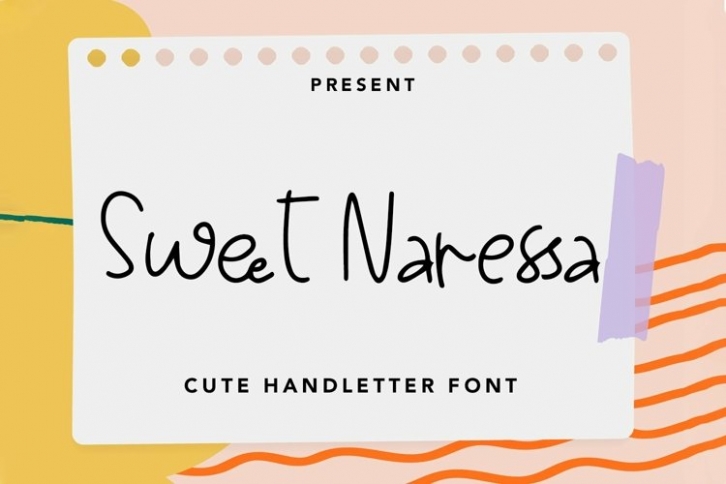
Web Sweet Naressa is a beautiful font that was designed by plusstore. It's a great choice for designers and creatives who need such a font. It was released on August 14, 2021 and the file size is 19.45 MB. Web Sweet Naressa may give a more youthful, expressive and casual look to your project. It is a very beautiful, refined, elegant, and high-quality font.